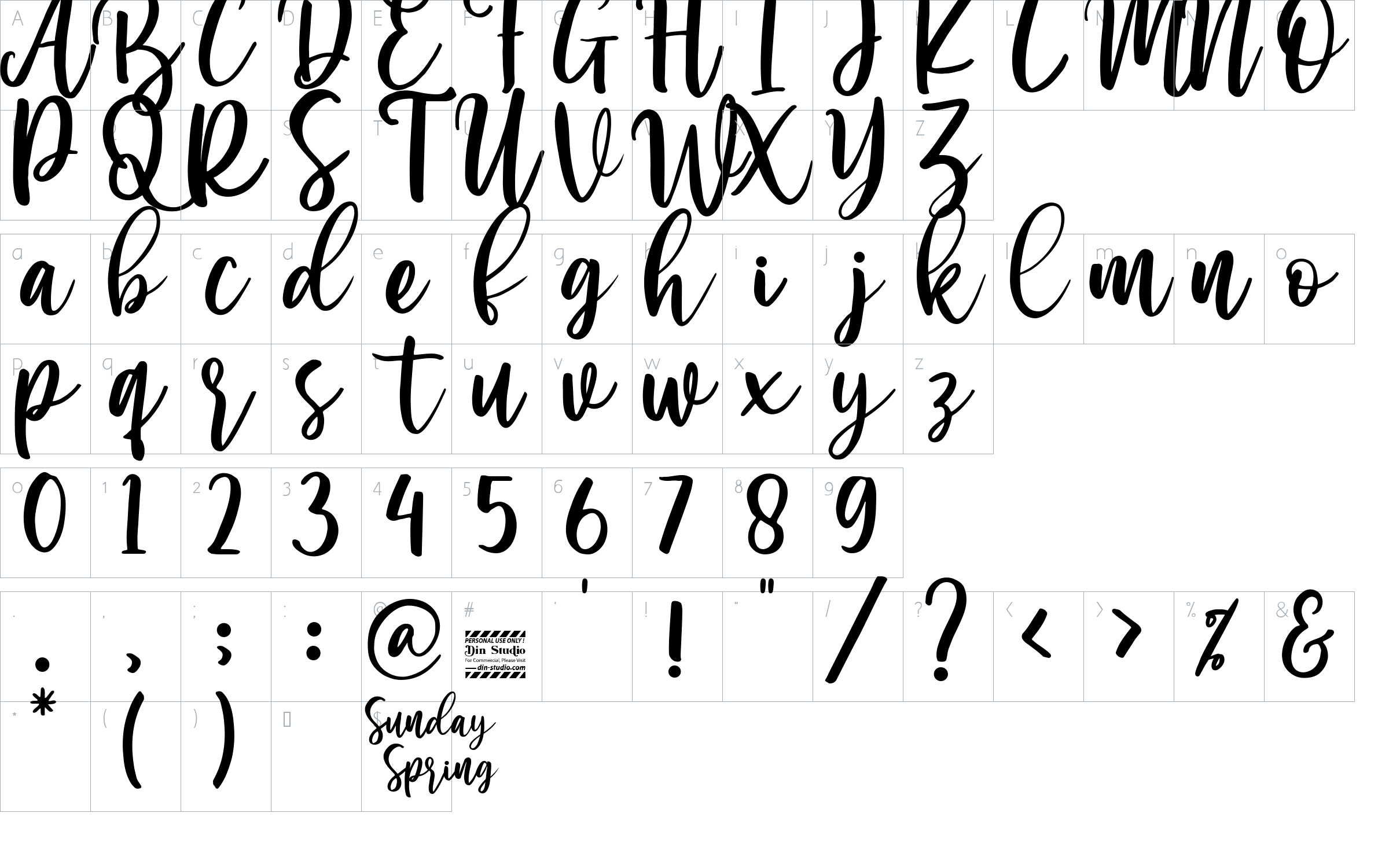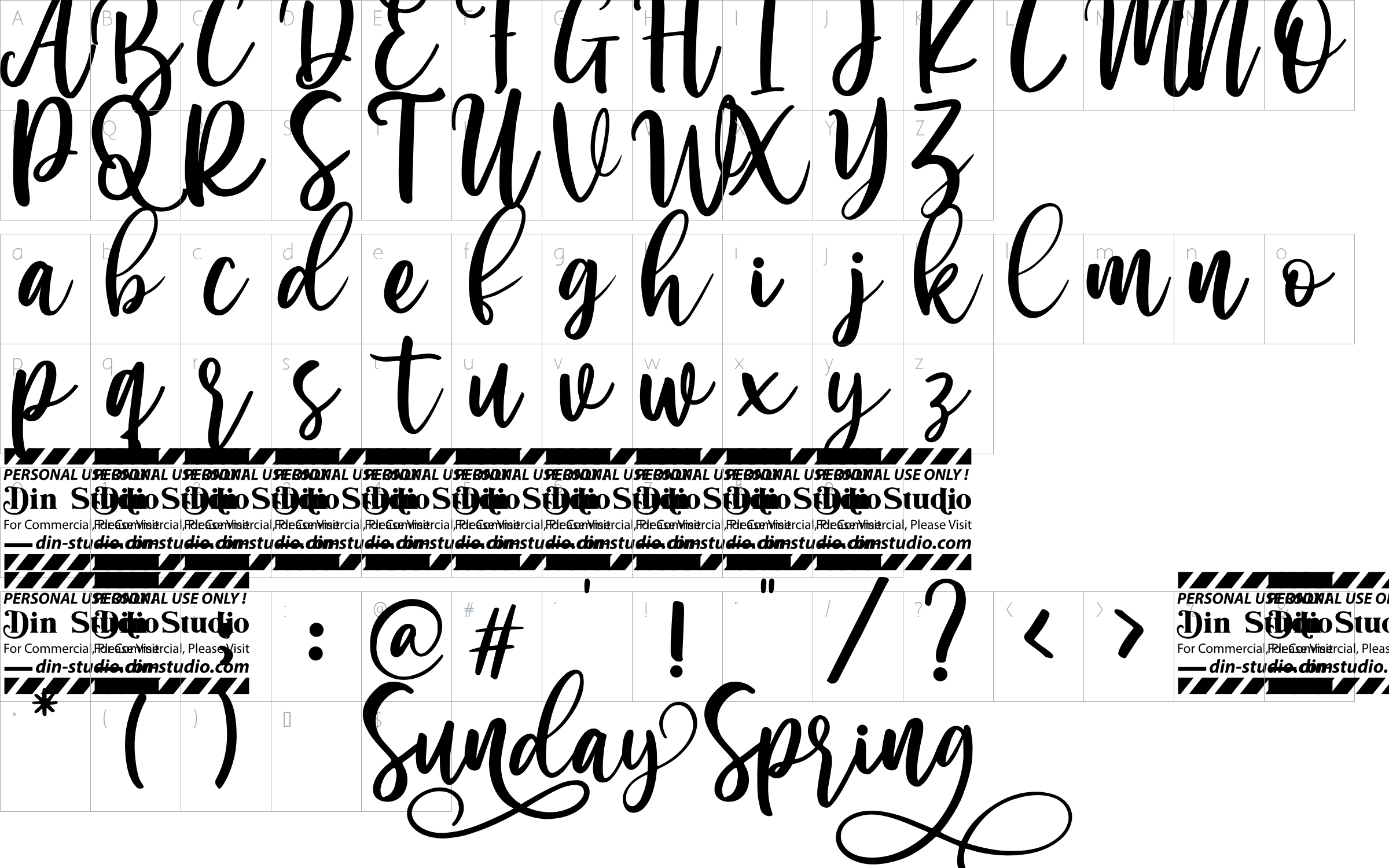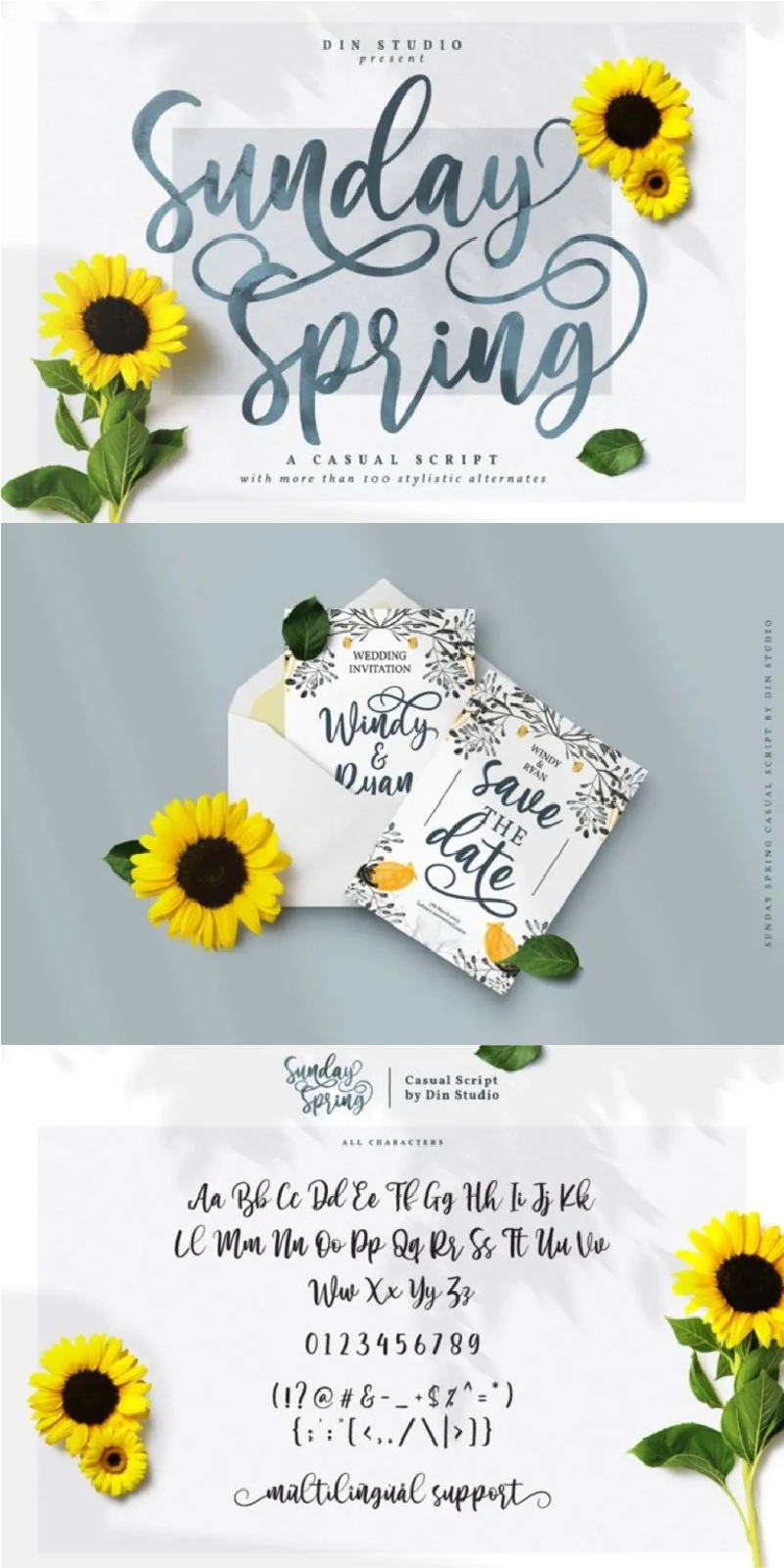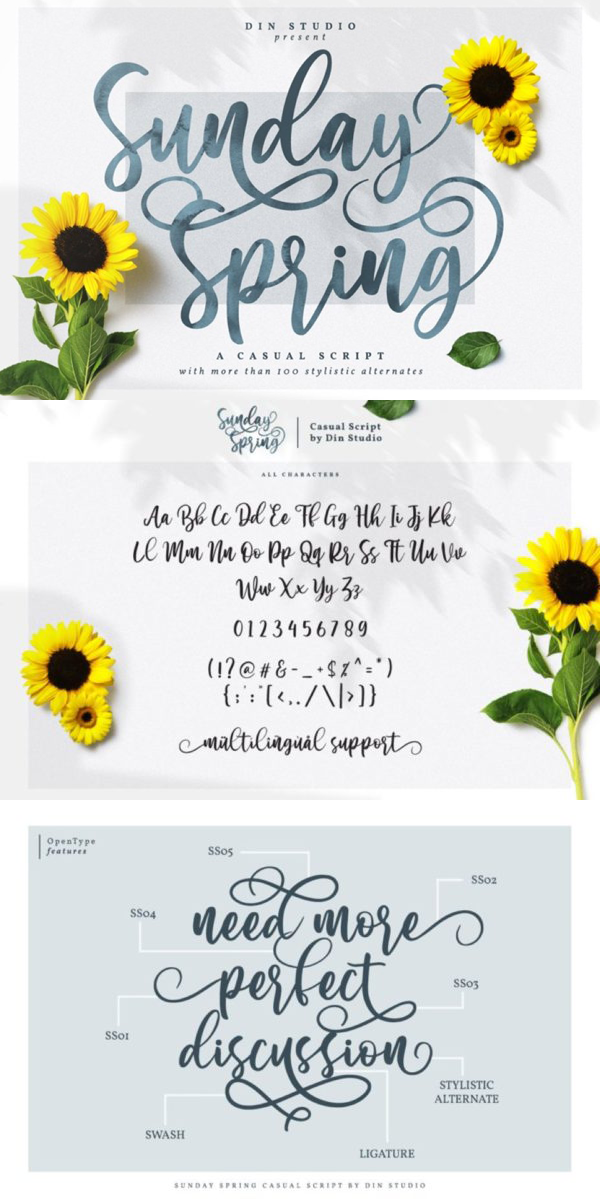
Sunday Spring Font
About Sunday Spring
Sunday Spring script font will make your design projects more beautiful. The font is suitable for any designs, for example brandings, fashions, printed templates, quotes, weddings, etc. See the previews above to get some inspiration on how you can use them. Happy designing!
Features include :
-110 Beautiful Alternates
-4 Beautiful Ligatures
-Numerals and Punctuations (OpenType Standard)